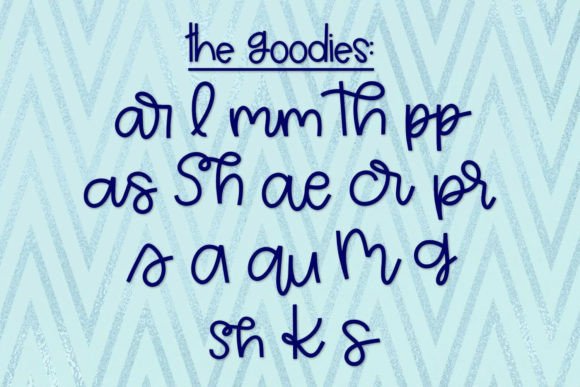
All Day Fishing is a handwritten, playful, and modern script-ish font. All Day Fishing features a handful of fun alternates, ligatures, and letter pairs to give your project a truly unique look and feel each time you use it! Perfect for all kinds of amazing projects, for kids and adults!
All Day Fishing Font